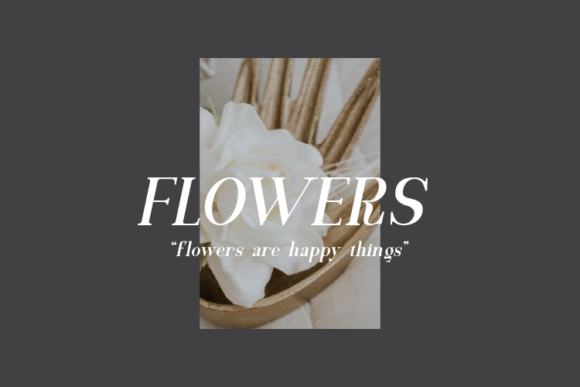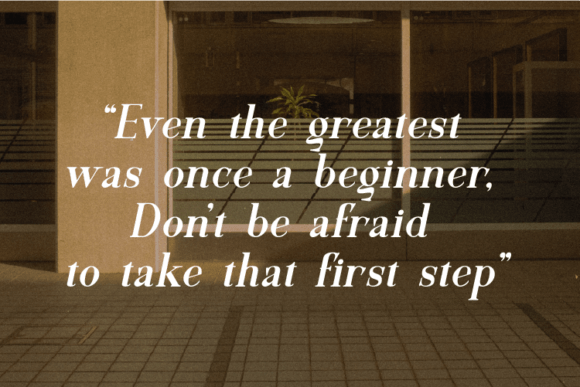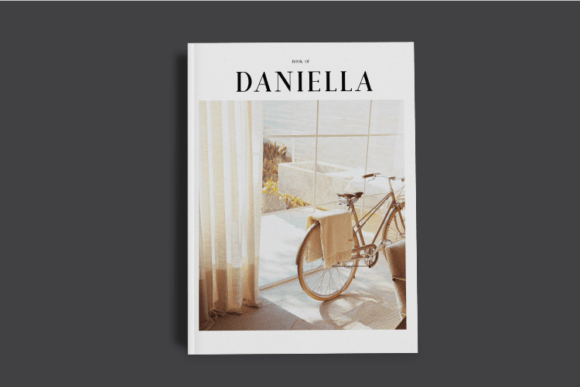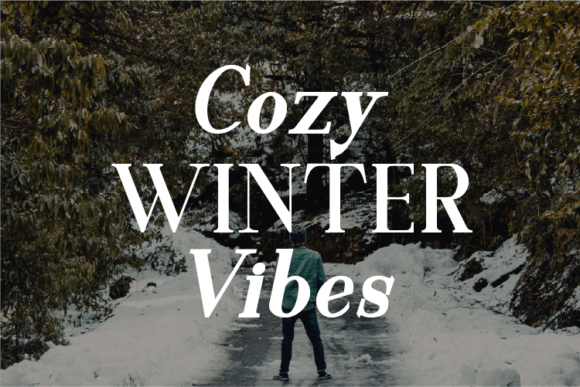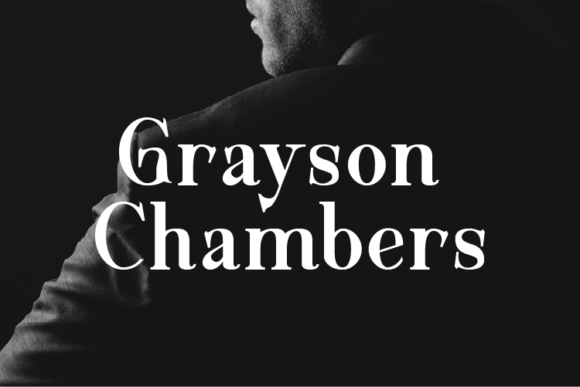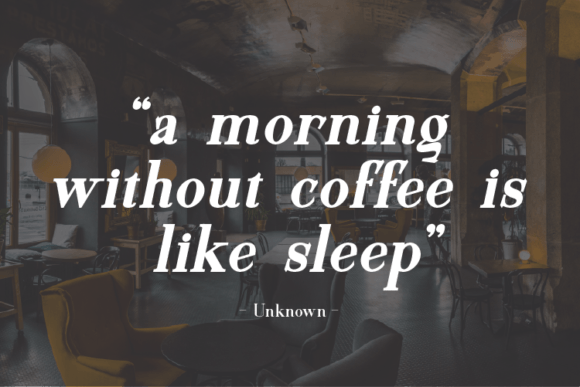
Introduction to Motzeda Font
Have you ever found yourself staring at a blank design canvas, struggling to bring your creative vision to life? That’s where the perfect design resource comes in – a font that not only elevates your design but also sets the tone for a high-quality creative project. For designers seeking that extra oomph, Motzeda Font is here to revolutionize your design game.
As a cool and assertive serif font, Motzeda Font is the perfect blend of trendiness and sophistication. Whether you’re working on a personal project or a client-based design, this font is sure to make your designs come to life. With its PUA encoding, accessing all the glyphs and ligatures is a breeze, making it an invaluable addition to your design toolkit. And the best part? You can download it for free, with a transparent background that ensures seamless integration into any design.
Investing in high-quality design resources like Motzeda Font is a valuable investment for any designer. With its unique style and versatility, this font is sure to become a go-to choice for your next creative project. So why wait? Get ready to unleash your creativity with Motzeda Font and take your designs to the next level.
Key Features of Motzeda Font
- High-quality design resource ideal for creative projects, including graphic design, web design, and digital art.
- Includes a transparent background, allowing for seamless integration into various design elements.
- Features a unique and elegant design, perfect for adding a touch of sophistication to any creative project.
Honest Review: Motzeda Font
I recently stumbled upon the Motzeda Font, and I must say, it’s a great addition to any designer’s toolkit. The Motzeda Font is a high-quality design resource that can elevate any creative project with its unique style and versatility.
- ✨ The font is highly customizable, making it suitable for a wide range of creative projects.
- ⚠️ The font may not be suitable for formal or professional projects, as its style is quite bold and playful.
- ⚠️ The font’s versatility can also make it feel somewhat generic, especially when used in conjunction with other fonts.
Overall, I’m quite impressed with the Motzeda Font. While it may not be the best fit for every project, it’s a great resource to have in your design arsenal. With its high-quality design and free download option, it’s definitely worth checking out for your next creative project.
Motzeda Font is a versatile and high-quality design resource ideal for creative projects. Its transparent background makes it perfect for layering and combining with other elements.
Tips for Getting the Most Out of Motzeda Font
For best results, use Motzeda Font in conjunction with other high-quality design resources. Experiment with layering and combining different elements to create unique and eye-catching designs.
Motzeda Font is ideal for a variety of creative projects, including:
Alternatives to Motzeda Font
Open Sans is a highly legible font that works well for body text. It’s a popular choice for designers looking for a clean and modern design resource. It’s ideal for creative projects that require a lot of text, such as blog posts, articles, and websites.
Compared to Motzeda Font, Open Sans is more versatile and can be used for a wide range of applications. While Motzeda Font is known for its unique, hand-drawn feel, Open Sans is more straightforward and easier to read.
Lato is a beautiful, high-quality font that’s perfect for designers looking for a elegant and sophisticated look. It’s a great choice for creative projects that require a lot of style and flair, such as branding, packaging, and advertising.